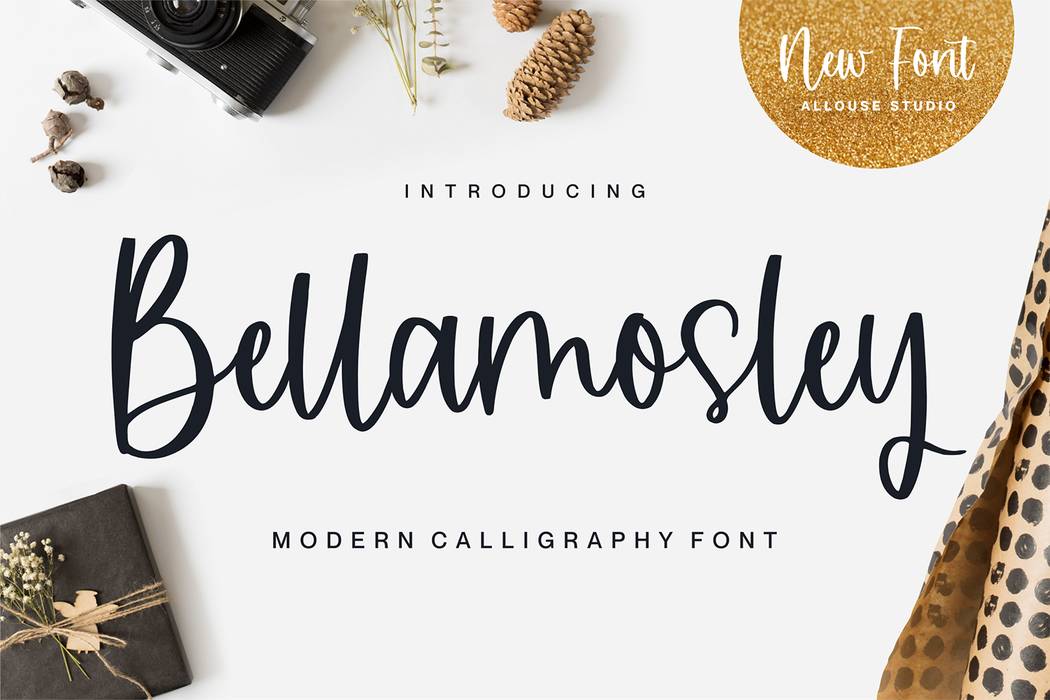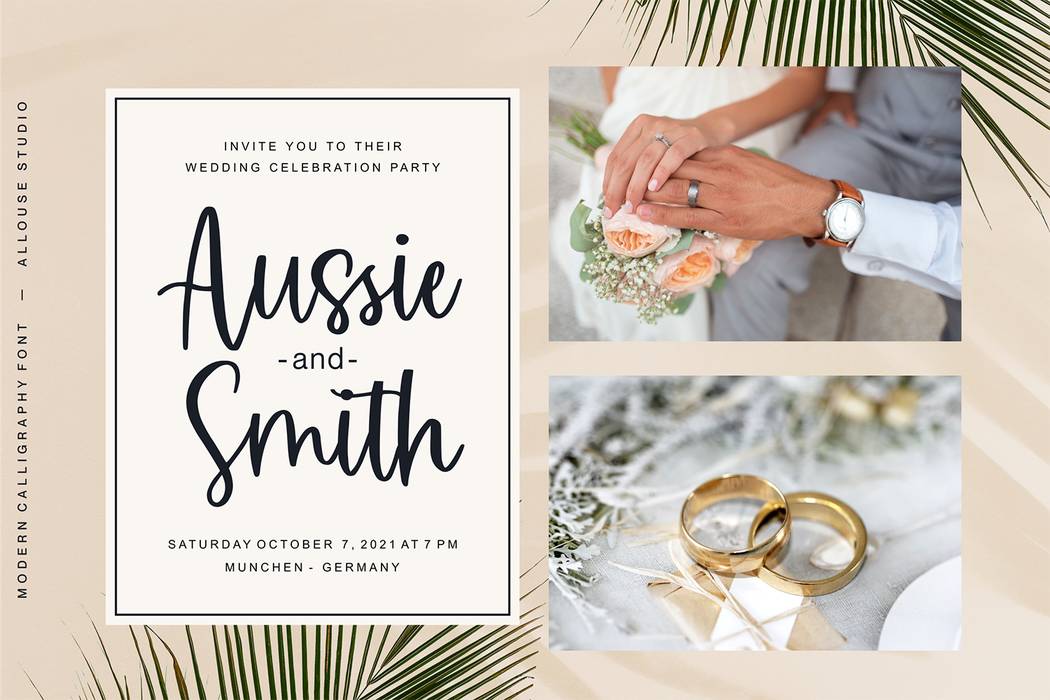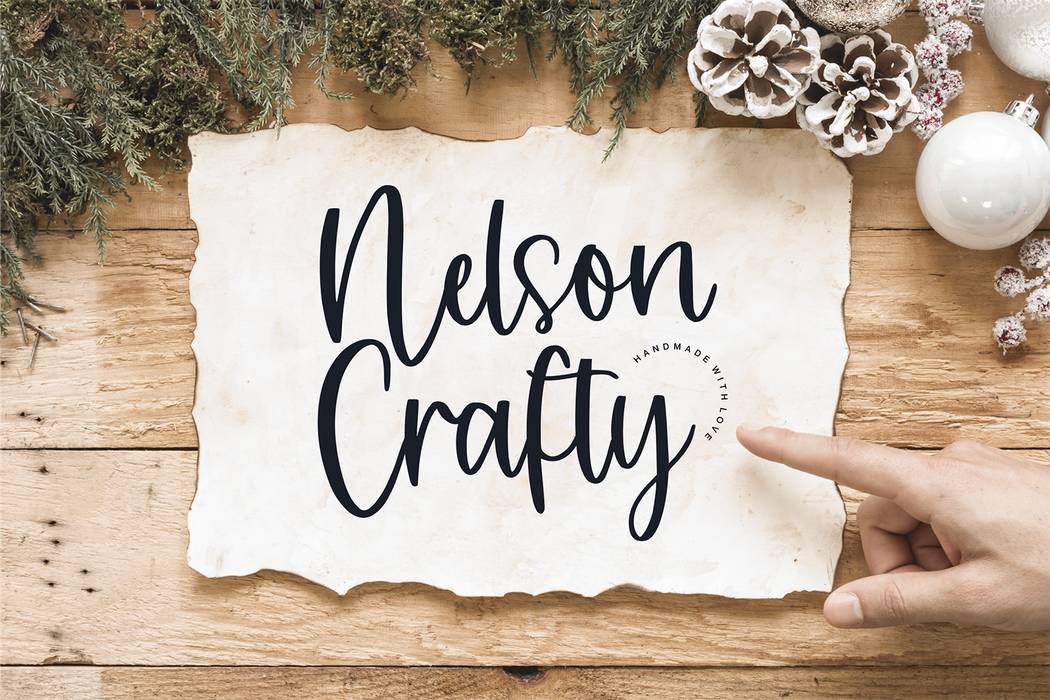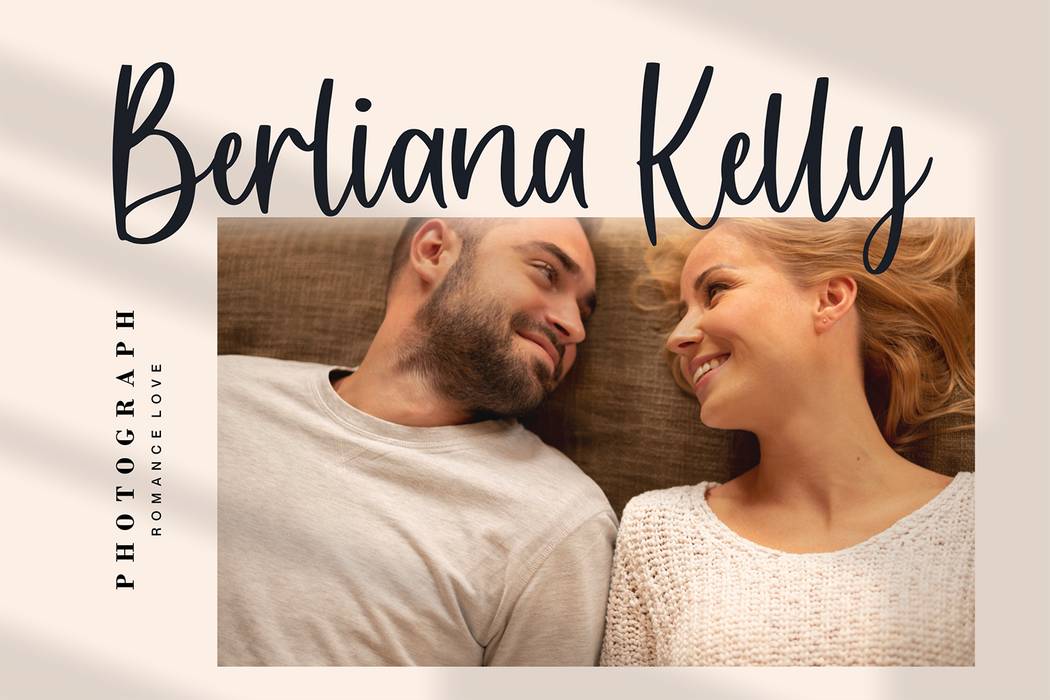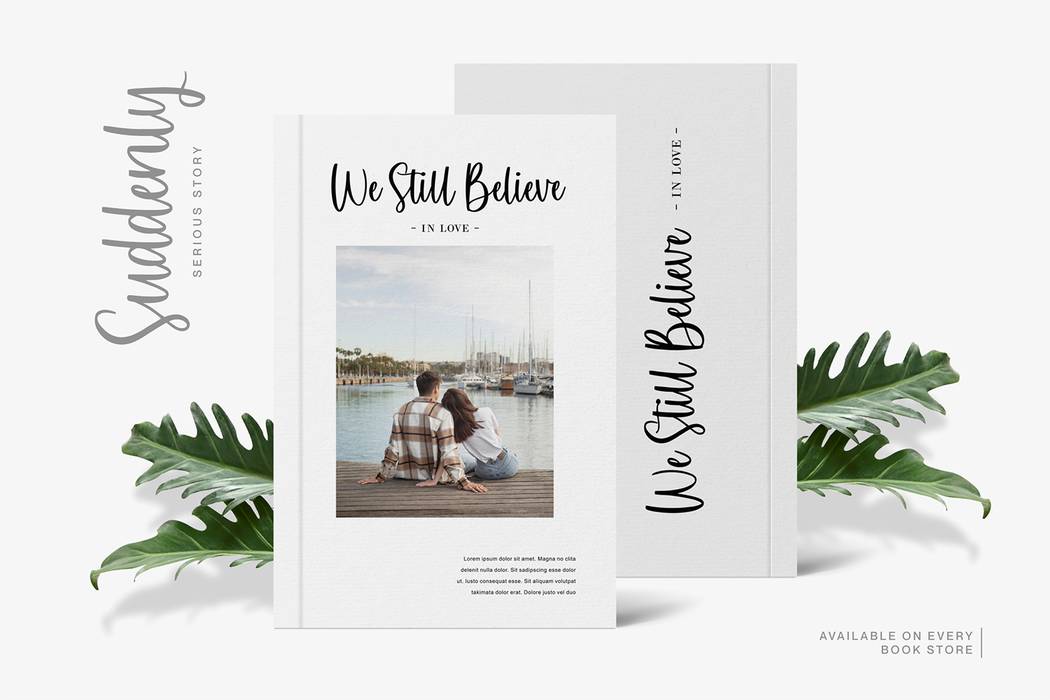
Bellamosley is a charming handwritten script font with a light, airy feel created by its tall, narrow letterforms and smooth, flowing strokes. Its playful elegance makes it ideal for creative projects seeking a personal, friendly touch, such as invitations, branding, and social media graphics. This font works best in display use, adding a stylish and approachable vibe to headlines and logos.
| Font family | Bellamosley Font |
| Release date | 2021-09-24 |
| Designer | Allouse Studio |